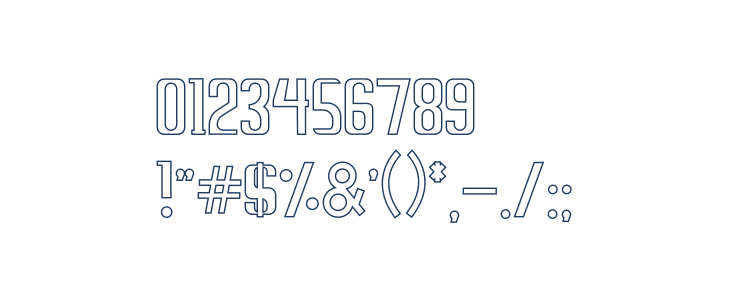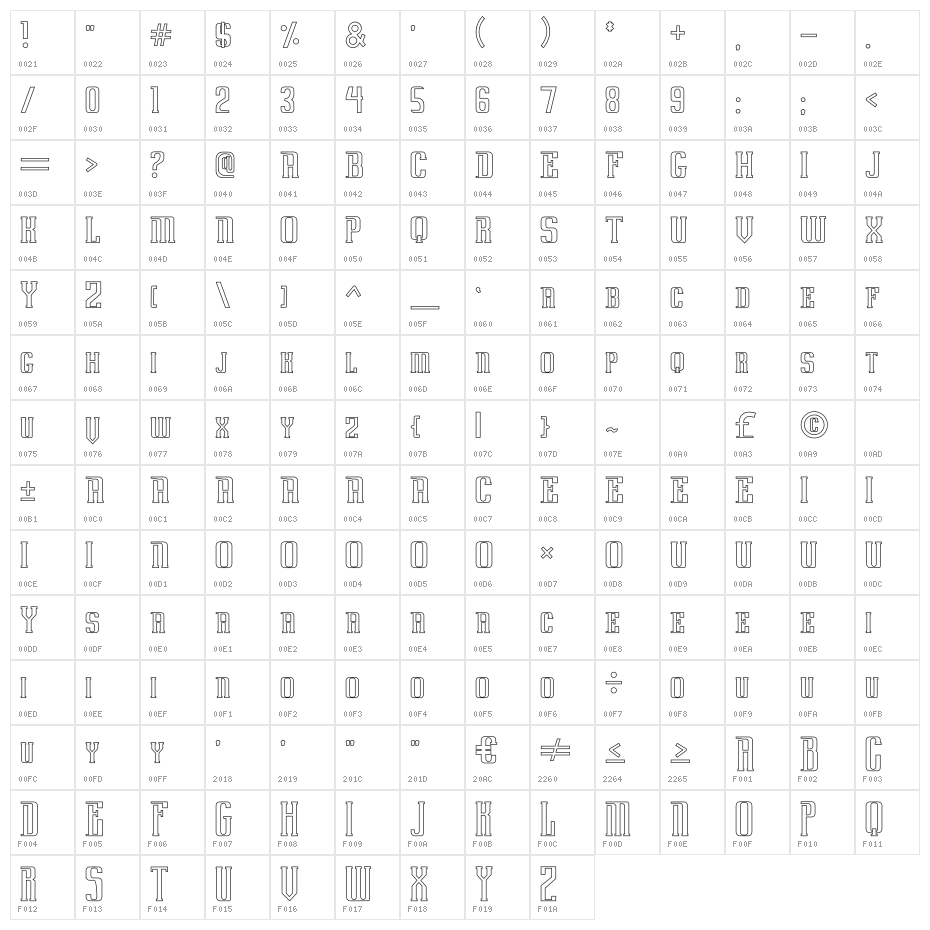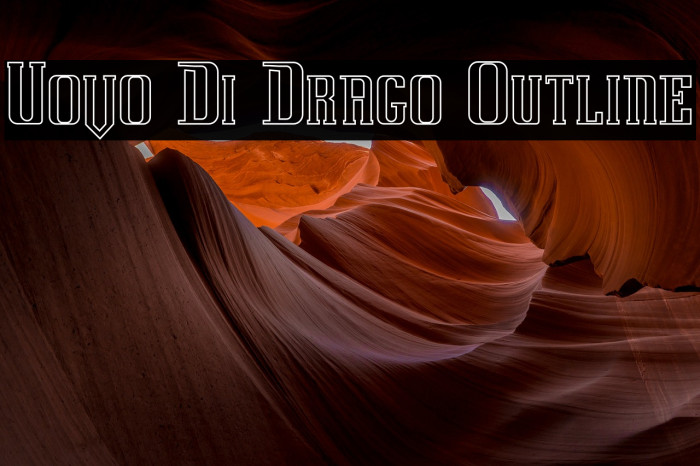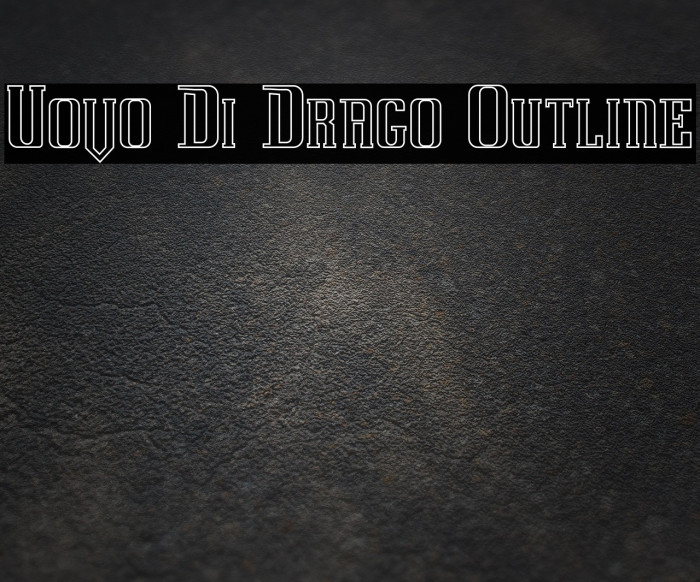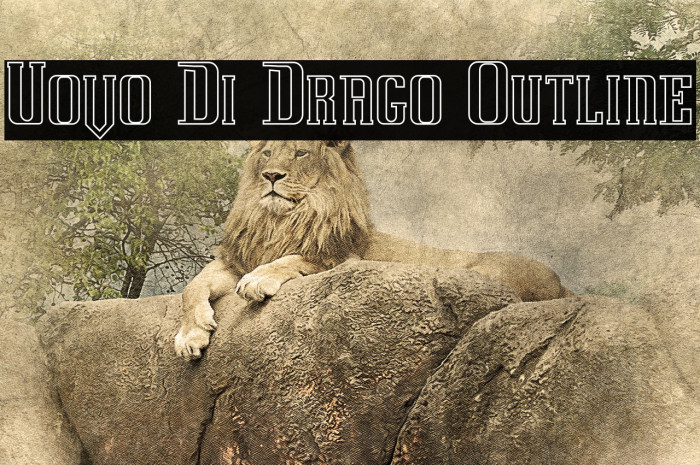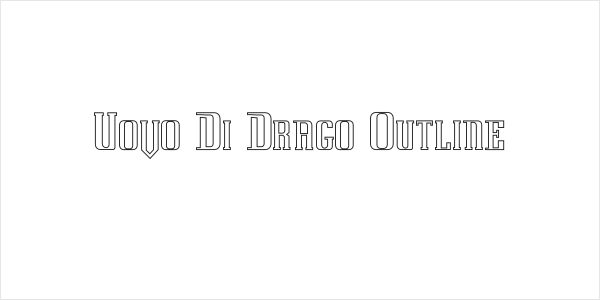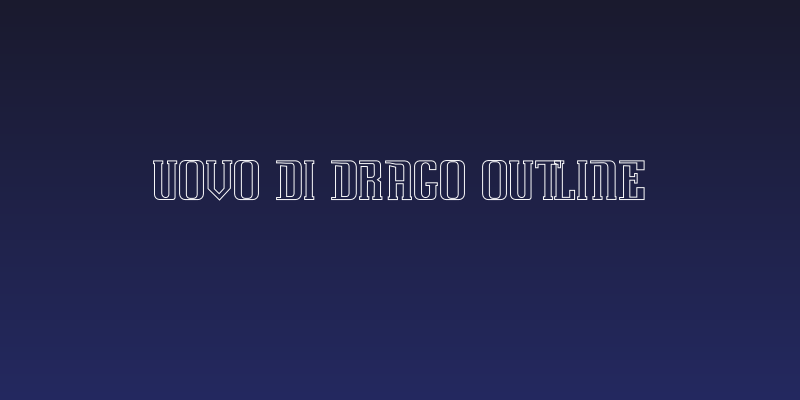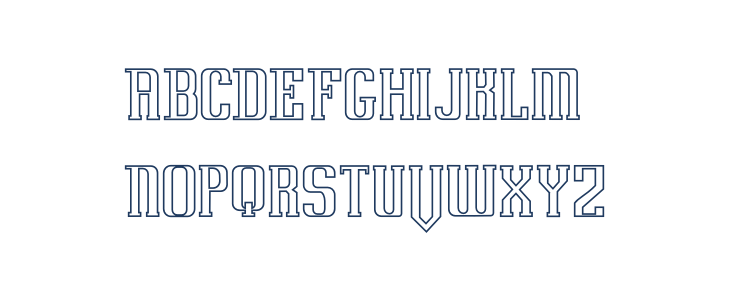
Uovo Di Drago Outline Font
Uovo Di Drago Outline Description
This font features a bold, outlined design with a modern and decorative flair. The uppercase letters are structured with a geometric precision, creating a sense of strength and stability. The outline style gives it a unique, eye-catching appearance, making it suitable for attention-grabbing headlines or logos. The characters are evenly spaced, maintaining a consistent visual flow. The numerals and special characters follow the same outlined style, ensuring uniformity across all glyphs. This font's distinct style makes it ideal for projects that require a bold statement.